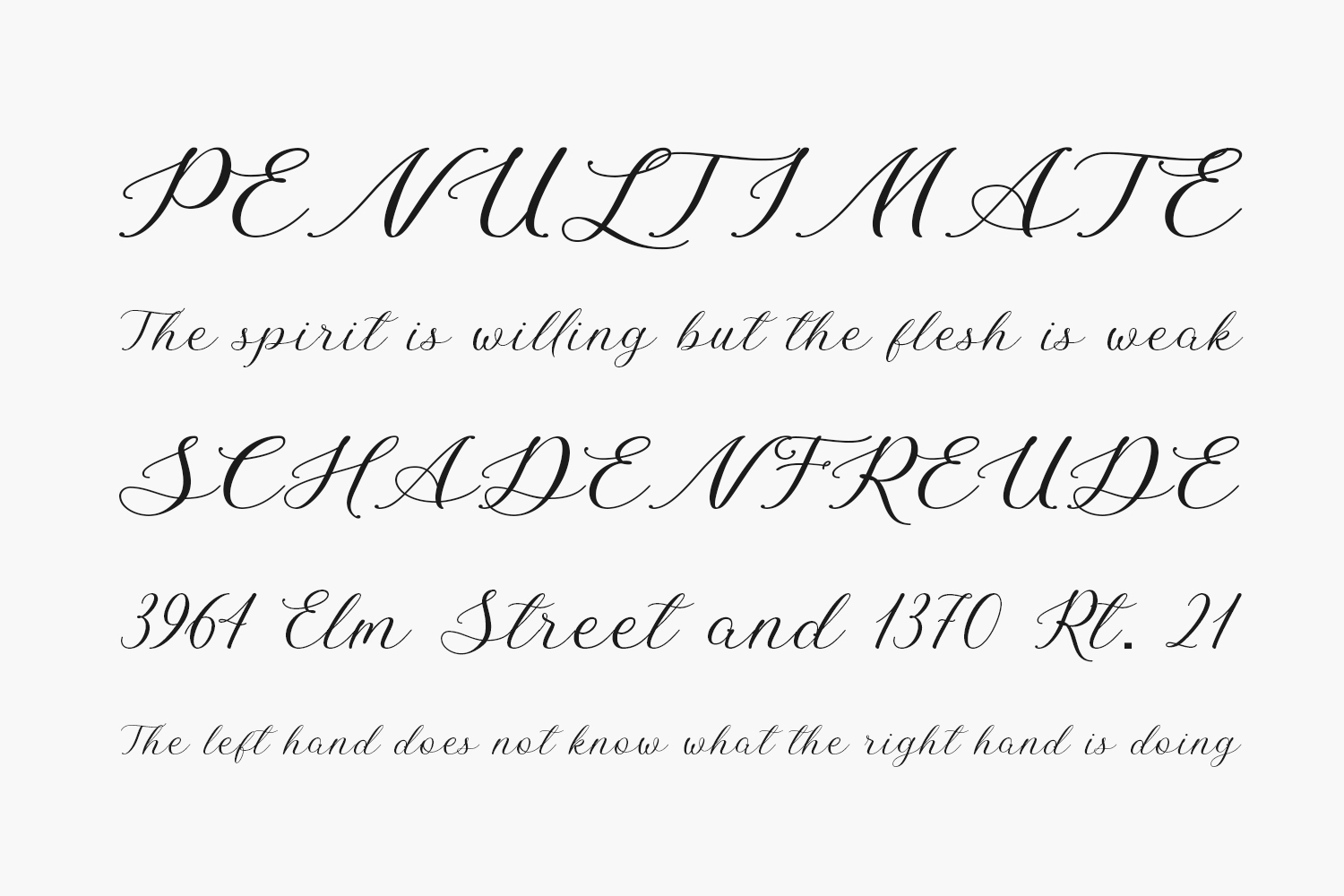
Bellasic Font Free Font is an elegant script. Especially made for those of you who are looking to add a touch of elegance and modernity to your design. It comes with an extra set of swashes and leafs. Bellasic Font Free Font was designed by Ydhra Studio and is free for personal use only. Please purchase the full version for commercial use.